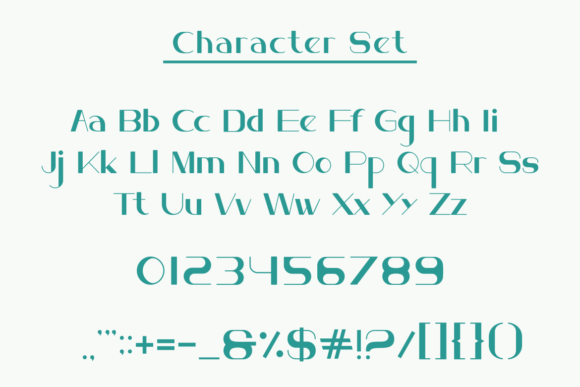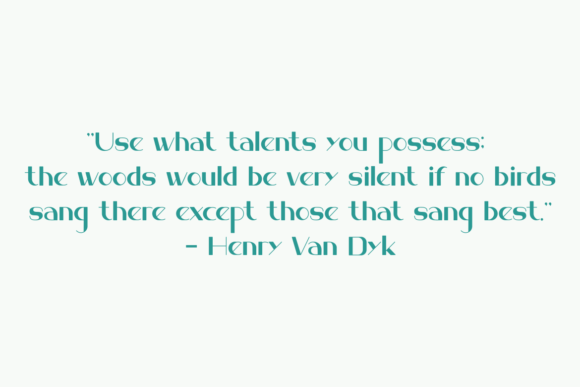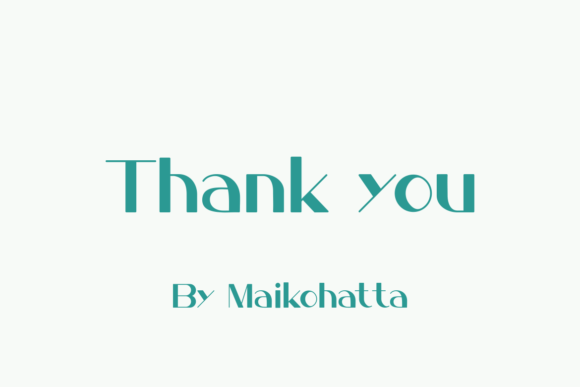
Introduction to Marhanita Font
Marhanita is a modern and exquisite sans-serif font, designed to elevate your projects to new heights of sophistication.
With clean lines and refined shapes, each letter exudes a polished and contemporary look that’s perfect for branding, packaging, and other design elements .
Marhanita Font offers exceptional quality and versatility, making it a valuable addition to your design toolkit. Whether you’re creating for personal projects or commercial use, Marhanita Font delivers professional results.